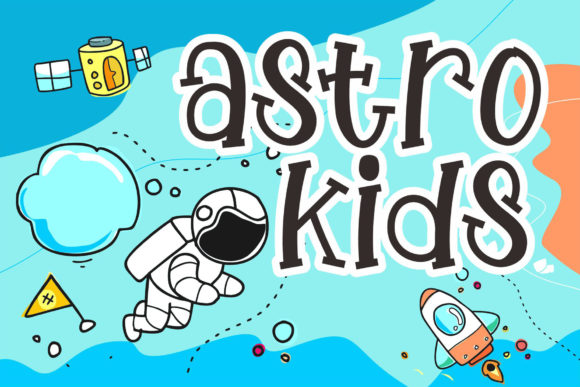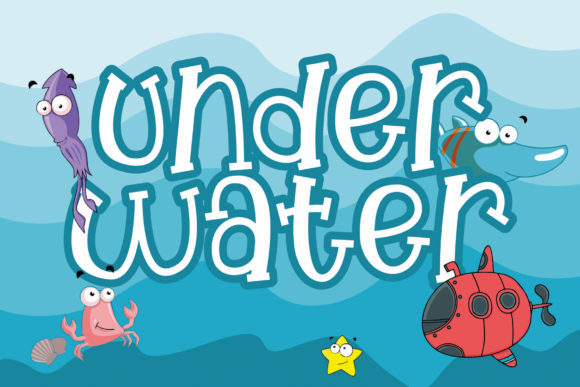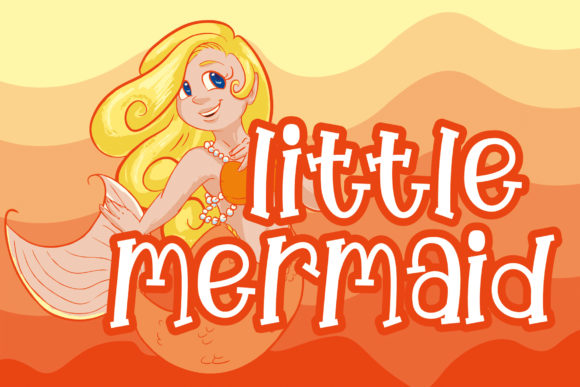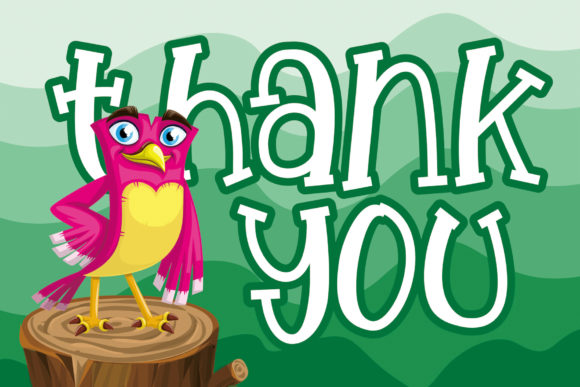
Introduction to Jarkids Font
Jarkids displays fun, uniqueness, and authenticity.
This eye-catching font will turn your creative ideas into a standout It will take your various design projects to the highest level, be it branding, headings, invitations, signatures, logos, labels, and more.
Key Features of Jarkids Font
Why Choose Jarkids Font?
Jarkids Font offers exceptional quality and versatility, making it a valuable addition to your design toolkit. Whether you’re creating for personal projects or commercial use, Jarkids Font delivers professional results.